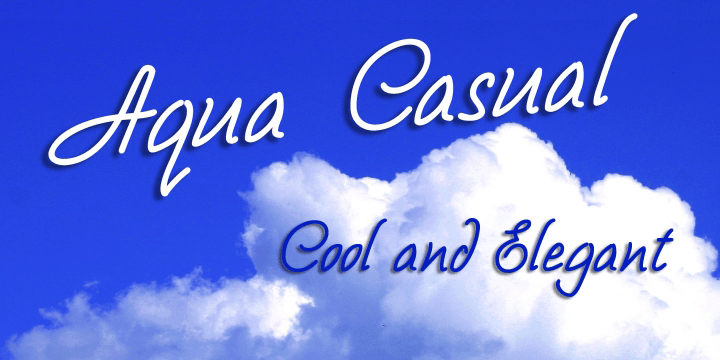
Aqua Casual
This font is essentially embedded, by its styling, in the 20th century. Inspired by fragments of some pre-20th century script fonts, I modernized it and added lower case characters. The result captures the cool elegance of the 1920s & 30s, yet also embodies the free optimism of the 60s.
Aqua Casual is a fully professional font, carefully letterspaced and kerned. All upper and lower case characters, punctuation, numerals and accented characters are present.